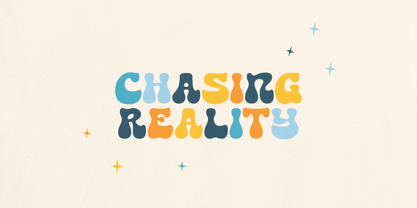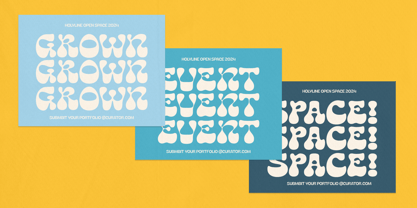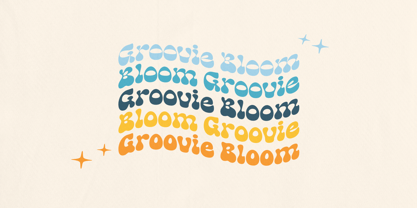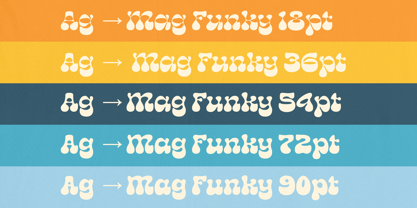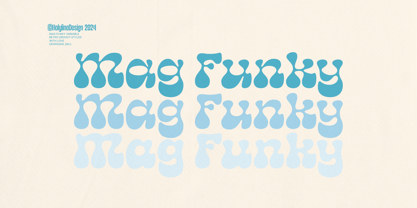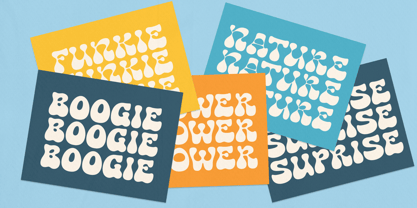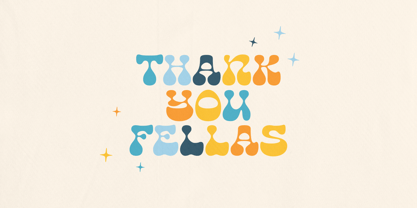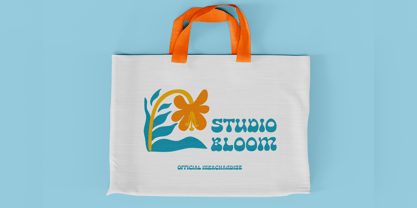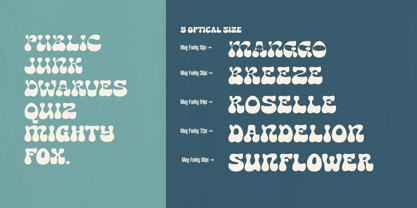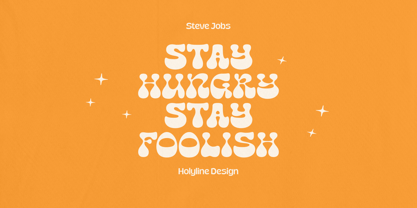
Mag Funky
von holyline design
Die Schriftfamilie Mag Funky wurde von Bagus Beratha Wijaya entworfen und von holyline design veröffentlicht. Mag Funky enthält 5 Stile und Familienpaketoptionen. Mehr über diese Familie
Mag Funky is a playfull, funky display fonts that brings the groovy charm of psychedelic and retro poster design into the modern age. With its thick, playful curves and vibrant personality, this font captures the free-spirited, colorful vibe of the ’60s and ’70s, making it perfect for eye-catching headlines, posters, and branding.
Featuring five optical sizes, Mag Funky offers a dynamic range of expressions—from subtle to high-contrast variations—designed to add flair and versatility to any layout. Whether you’re aiming for a bold statement or a softer retro look, Mag Funky has the right style to bring your vision to life. Mag Funky is ideal for projects that demand attention with a touch of retro funk and a whole lot of personality.
Designer: Bagus Beratha Wijaya
Foundry: holyline design